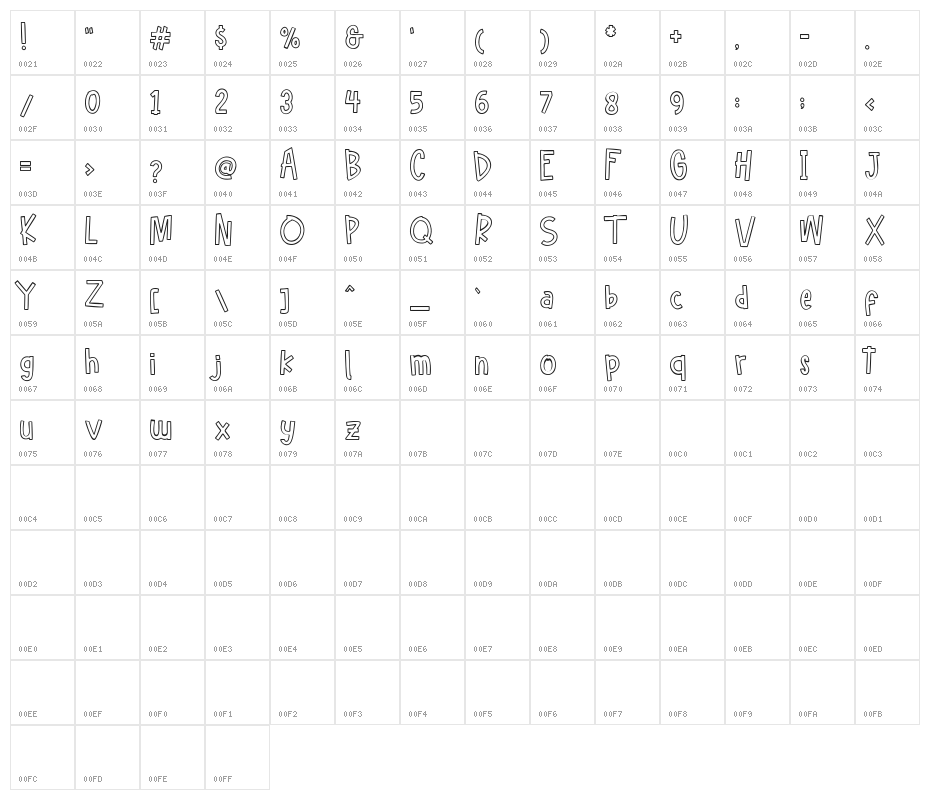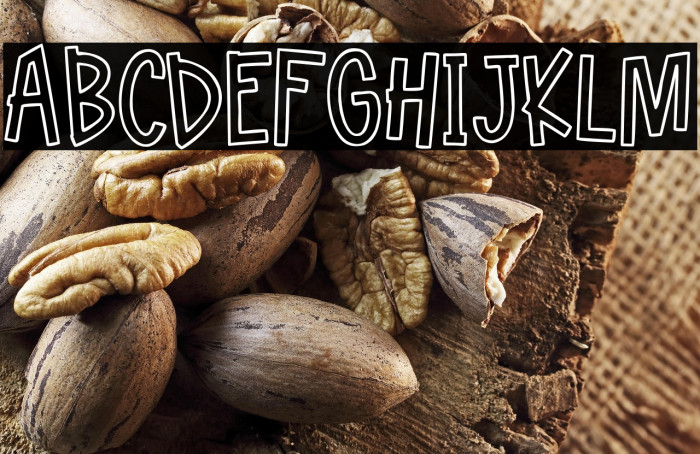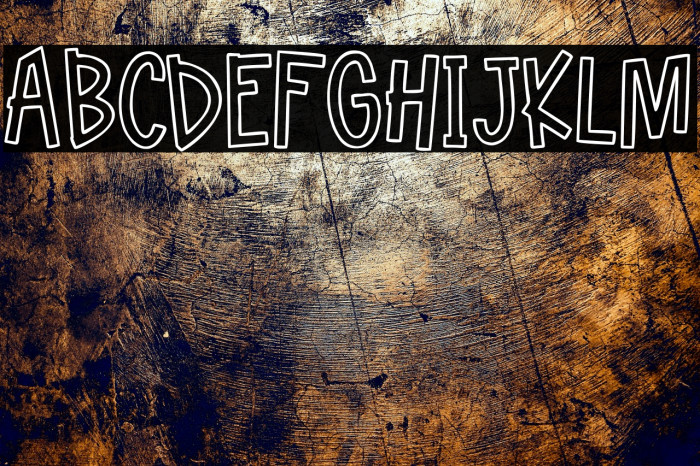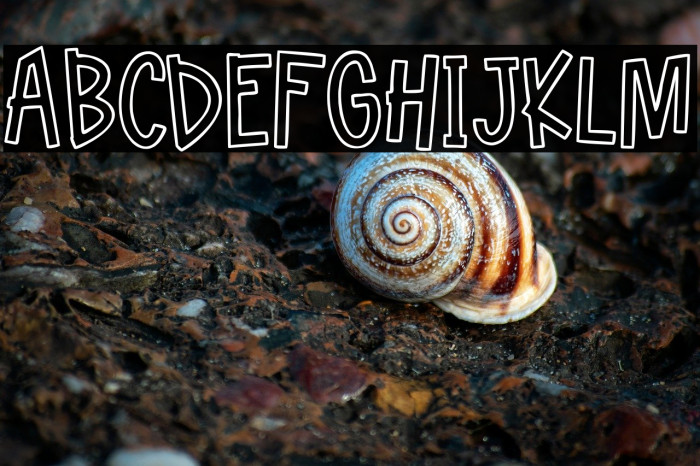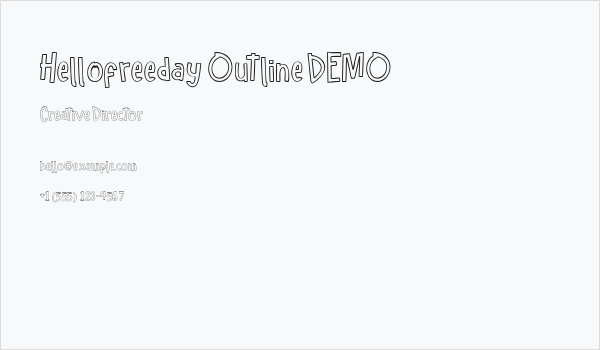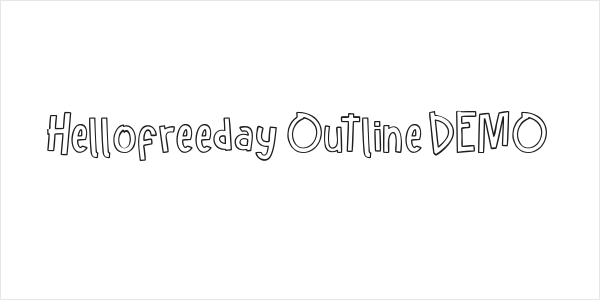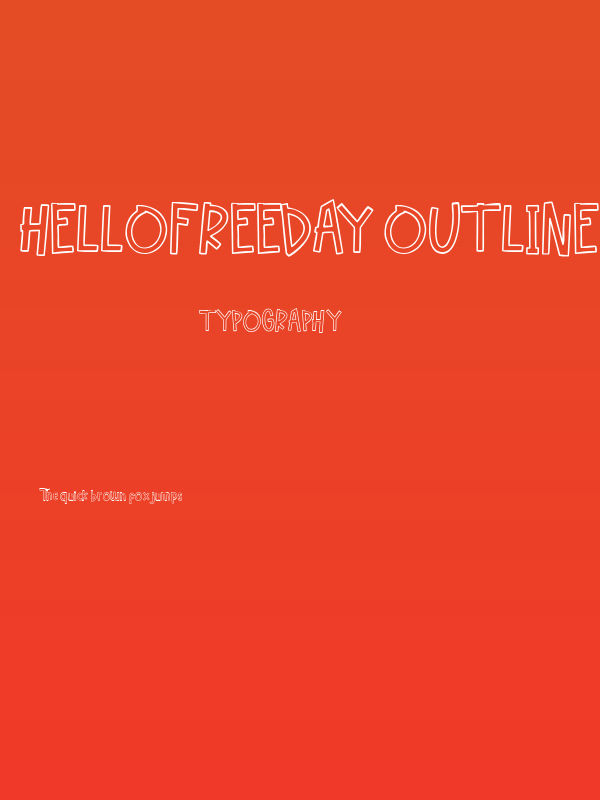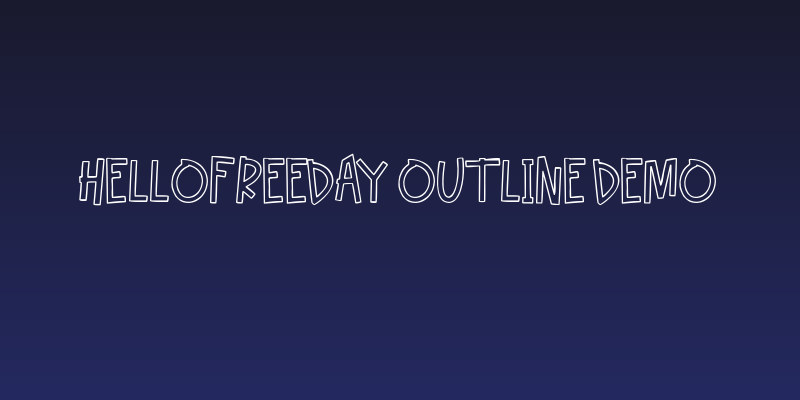
Hellofreeday Outline DEMO Font
Hellofreeday Outline DEMO Description
This playful and bold outline font features a hand-drawn aesthetic, giving it a whimsical and casual feel. The uppercase and lowercase letters are consistent in style, with a slightly irregular stroke that adds to its charm. The numbers and special characters maintain the same playful outline, making it versatile for various creative projects. The font's outline nature allows for creative coloring and layering effects, making it ideal for designs that require a fun and engaging look.
| Overall Style | Playful, Casual |
| Proposed Projects | Ideal for children's books, greeting cards, playful posters, and creative branding projects. |